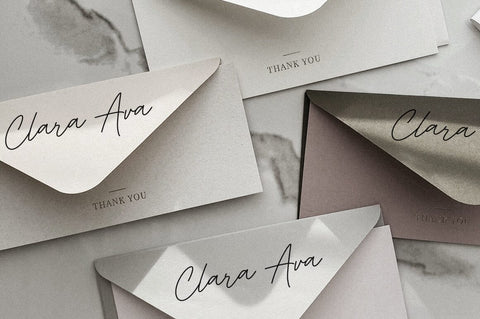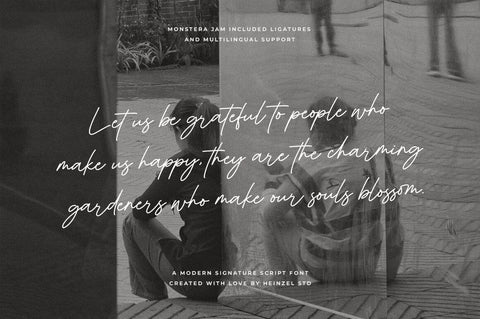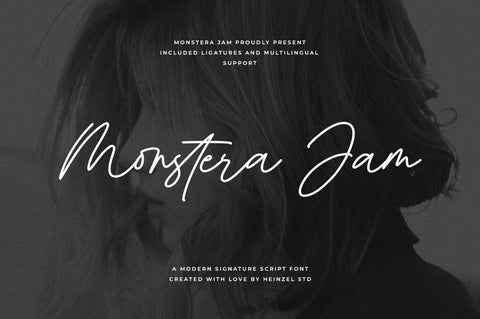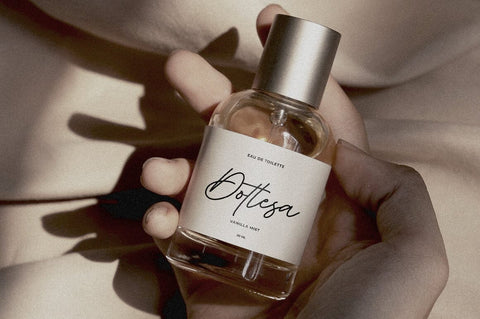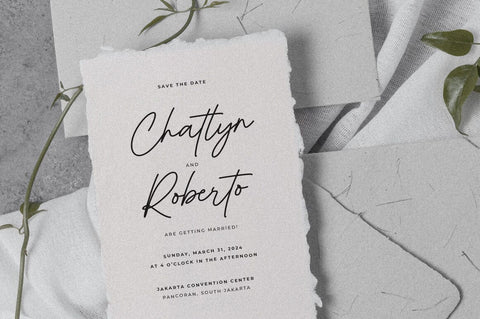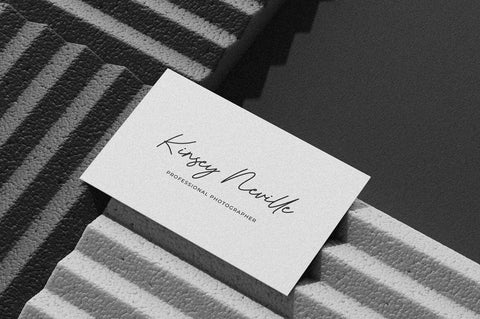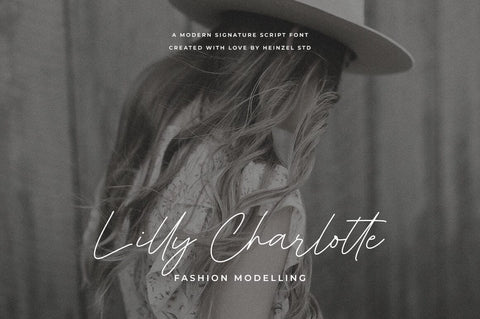
Monstera Jam Signature Font
Monstera Jam is a modern signature font, described by an elegant touch, perfect for your favorite projects. It looks stunning on wedding invitations, thank you cards, quotes, greeting cards, logos, branding, business cards, social media posts, magazines, marketing materials, and every other design that needs a handwritten touch. Fall in love with its incredibly distinct and timeless style and use it to create spectacular designs!
Monstera Jam Features:
- Regular and Bold Version
- Numerical and Punctuation
- Multilingual Language
This character set supports the following 21 languages: Afrikaans, Basque, Breton, Catalan, Danish, Dutch, English, Finnish, French, Gaelic (Irish, Scots), German, Icelandic, Indonesian, Irish, Italian, Norwegian, Portuguese, Saami (Southern), Spanish, Swahili, Swedish.